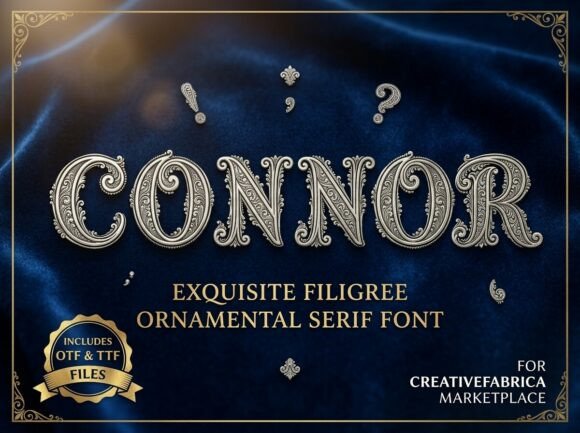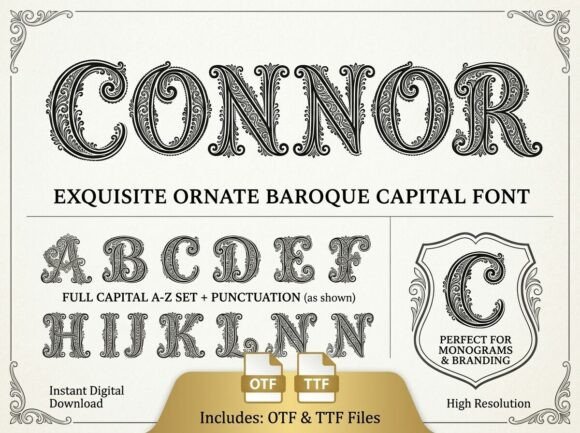
Introducing Connor Font: The Ultimate Decorative Display Font for Creative Minds
In the world of design, typography plays a crucial role in capturing the attention of your audience and conveying your message effectively. If you’re a creator looking for a font that can help you break away from the ordinary and make a lasting impression, look no further than Connor Font. This stunning decorative display font is designed to be the center of attention, featuring unique artistic elements and a strong visual personality that will elevate your designs to the next level.
Connor Font is perfect for designers who want to create high-impact designs where the typography needs to do the talking. With its intricate details and creative letterforms, this font adds an instant “wow” factor to any project. Whether you’re designing a modern poster, a unique brand identity, or eye-catching social media content, Connor Font is the perfect choice. Its versatility makes it suitable for a wide range of applications, from bold headlines and artistic logos to creative packaging and more.
Ideal for Various Design Projects
So, what can you create with Connor Font? The possibilities are endless! Here are some ideas to get you started:
- Poster Design: Create headlines that people can’t look away from. Connor Font is perfect for designing attention-grabbing posters that will leave a lasting impression on your audience.
- Branding & Logos: Build a unique identity for creative businesses. With its artistic elements and strong visual personality, Connor Font is ideal for designing distinctive logos that will set your brand apart.
- Apparel & Merch: Perfect for T-shirts, hoodies, and tote bag designs. Connor Font will add a touch of personality to your apparel and merchandise, making them stand out in a crowded market.
- Social Media: Make your quotes and announcements stand out in the feed. Use Connor Font to create eye-catching social media content that will grab the attention of your followers.
- Packaging: Give your products a premium feel with Connor Font. This font is perfect for designing labels, packaging, and other marketing materials that require a professional and polished finish.
Why Choose Connor Font?
So, what makes Connor Font so special? Here are just a few reasons why designers and crafters love this font:
- Unique Artistic Elements: Connor Font features intricate details and creative letterforms that will add a touch of personality to your designs.
- Strong Visual Personality: This font has a bold and confident presence that will make your designs stand out.
- Versatility: Connor Font is suitable for a wide range of applications, from posters and logos to social media content and packaging.
- Professional and Polished Finish: Despite its creative and artistic elements, Connor Font maintains a professional and polished finish that’s perfect for high-end designs.
Tips for Using Connor Font Effectively
To get the most out of Connor Font, here are a few tips to keep in mind:
- Use it sparingly: While Connor Font is perfect for headlines and titles, it’s best to use it sparingly to avoid overwhelming your design.
- Experiment with colors: Don’t be afraid to experiment with different colors and textures to add depth and interest to your design.
- Pair it with a simple font: For body text and other smaller elements, pair Connor Font with a simple and clean font to create visual contrast.
In conclusion, Connor Font is a stunning decorative display font that’s perfect for designers and crafters who want to add a touch of personality to their designs. With its unique artistic elements, strong visual personality, and versatility, this font is ideal for a wide range of applications. Whether you’re designing posters, logos, social media content, or packaging, Connor Font is sure to make a lasting impression on your audience.